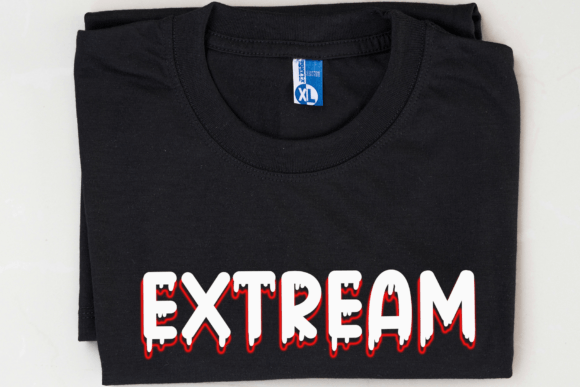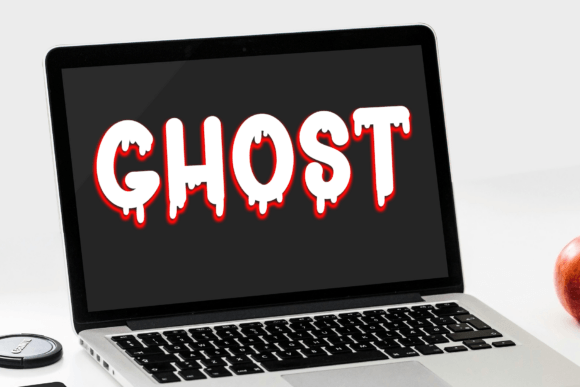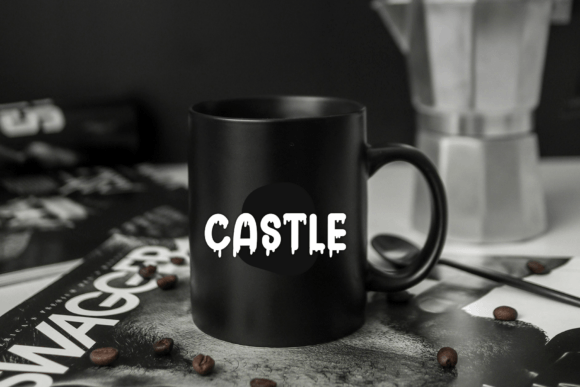
Introduction to Horror Mitos Font
As a designer, there’s nothing quite like the thrill of discovering a new font that perfectly captures the essence of your creative project. For me, that moment came when I stumbled upon the eerie and captivating Horror Mitos Font. Its bold, dripping style sent shivers down my spine, and I knew I had to learn more about this hauntingly beautiful design resource.
Whether you’re working on a spooky Halloween sign, a horror-themed video game, or simply want to add a touch of macabre to your design, Horror Mitos Font is the perfect tool for the job. With its thick, bold style and transparent background, it’s easy to read and manipulate, making it a valuable asset for designers of all levels. And the best part? It’s available for free download, making it a must-have for any creative project that requires a high-quality, chilling effect.
So, let’s dive into the world of Horror Mitos Font and explore what makes it so unique and valuable for designers like you.
Key Features of Horror Mitos Font
- High-quality design resource with a unique, horror-inspired aesthetic, perfect for creative projects.
- Unique characteristics include a bold, eerie feel and a wide range of characters, including symbols and accents.
Honest Review: Horror Mitos Font
I recently had the chance to work with the Horror Mitos Font for a creative project, and I must say it’s a great addition to any design resource collection. With a free download option, it’s easily accessible for designers of all levels.
One of the standout features of this font is its unique and eerie aesthetic, perfect for horror-themed projects or anything that needs a touch of darkness. The transparent background allows for seamless integration with images and other design elements.
However, there are a few limitations: ⚠️ Limited character set ⚠️ May not be suitable for all types of projects ⚠️ Could be improved with additional font styles
Overall, I’m impressed with the Horror Mitos Font. It’s a great design resource for anyone looking to add a touch of horror or darkness to their creative project. While it may have some limitations, its unique aesthetic and high-quality design make it a valuable addition to any designer’s collection.
- Font style: Horror-themed, eerie aesthetic
- Character set: Limited
- Background: Transparent
How to Use Horror Mitos Font
Experiment with different font sizes, colors, and styles to create a haunting effect. Combine the Horror Mitos Font with other design resources, such as images or graphics, to create a cohesive and spooky design.
The Horror Mitos Font is ideal for creative projects, such as horror movie posters, haunted house invitations, or spooky social media graphics. It’s also a great design resource for writers, artists, and designers who want to add a touch of horror to their work.